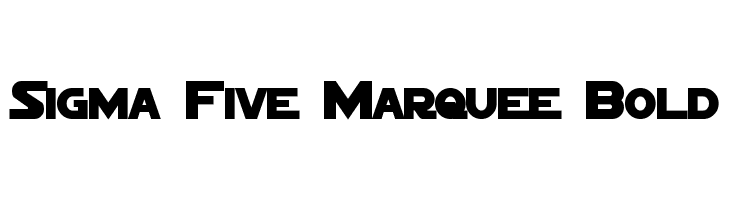
A bold, ultra-condensed font with tight spacing and strong visual impact.
A distressed, grunge-style font with a rugged, paint-smeared look.
A bold, angular font with a dynamic, futuristic style.
Bold, geometric font with a strong, impactful presence.
A modern, italic outline font with a playful and dynamic style.
A bold, geometric font with a futuristic and structured appearance.
A bold, distressed font with a grunge, stamp-like appearance.
A playful, hand-drawn font with characters on individual tiles, perfect for creative projects.
A bold, playful handwritten font with smooth, rounded characters.
A pixelated, retro-style font with a blocky, digital aesthetic.
A bold, playful font with a hand-drawn, whimsical style.
A bold, geometric outline font with a modern and futuristic aesthetic.
A bold, hand-painted style font with dynamic, uneven strokes.
A playful, rounded font with smooth curves and a whimsical style.
A bold, gothic-inspired font with sharp angles and dramatic serifs.
A modern, elegant font with high contrast and decorative elements.
A sleek, futuristic, condensed italic font with sharp angles and smooth curves.
A bold, three-dimensional font with a beveled edge and shadow effect.
Cartoonish, illustrative font with each glyph as a unique character drawing.
A bold, geometric font with unique circular cutouts and a uniform appearance.
A bold, italicized font with a textured, vintage appearance.
A traditional blackletter font with bold, ornate letterforms and a medieval aesthetic.
A surreal and artistic collection of abstract illustrations.
A futuristic, geometric font with high contrast and abstract character designs.
A bold, geometric, and condensed font with a modern, industrial aesthetic.
A playful, hand-drawn font with a casual and informal style.
A modern, light, and minimalistic sans-serif font with low contrast.
A playful, bold font with thick, rounded, outlined characters.
A bold, geometric sans-serif font with a modern and clean design.
设计师偏爱 Pavadee Bold Italic, Absolut UltraCondensed Reduced Med, BAWetPaint-1980, Americorps Expanded and Fest235,因为其造型干净、适用范围广—— 从品牌识别到落地页、海报都能胜任。